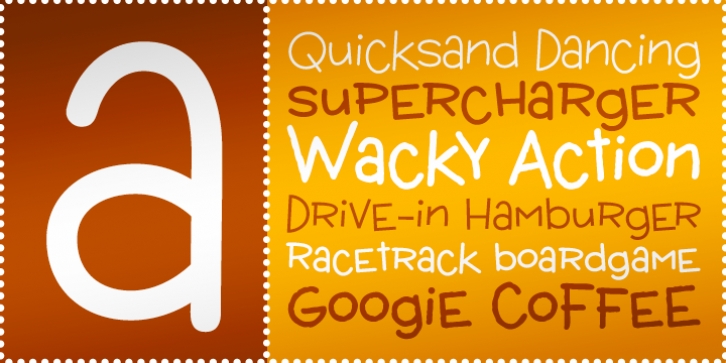
Wacky Action BTN was designed by Stuart Sandler and published by Breaking the Norm. Wacky Action BTN contains 5 styles and family package options.
It's Wacky Action.
Wacky Action is non-toxic, safe for the kiddies and provides hours of fonty fun.
Get wacky with Wacky Action!
· Wacky Action BTN Light
· Wacky Action BTN
· Wacky Action BTN Bold
· Wacky Action BTN Square
· Wacky Action BTN Wavy